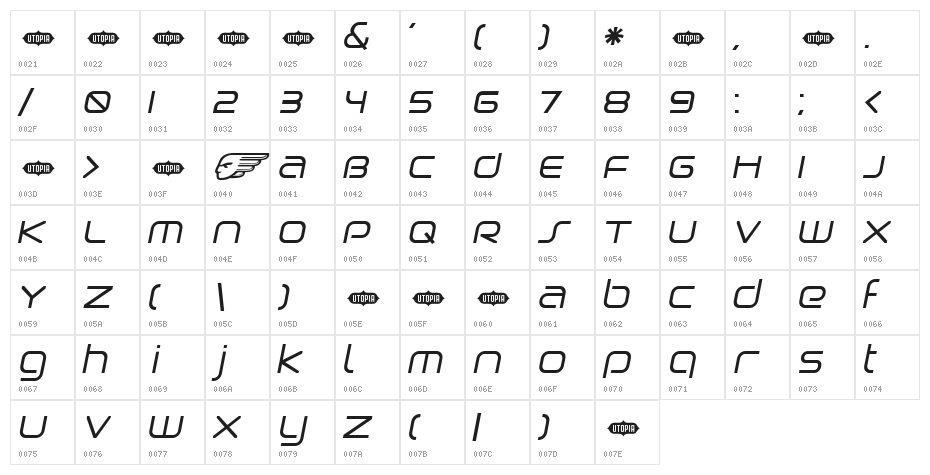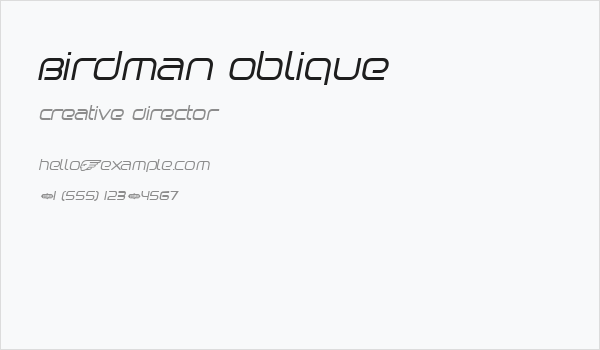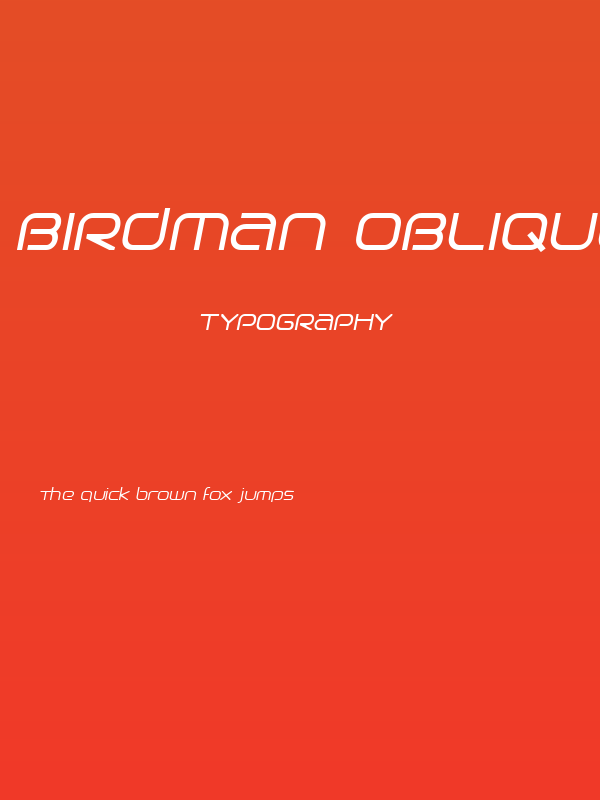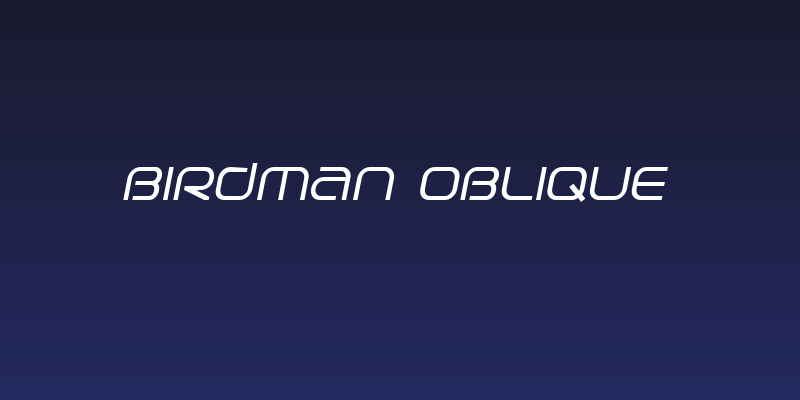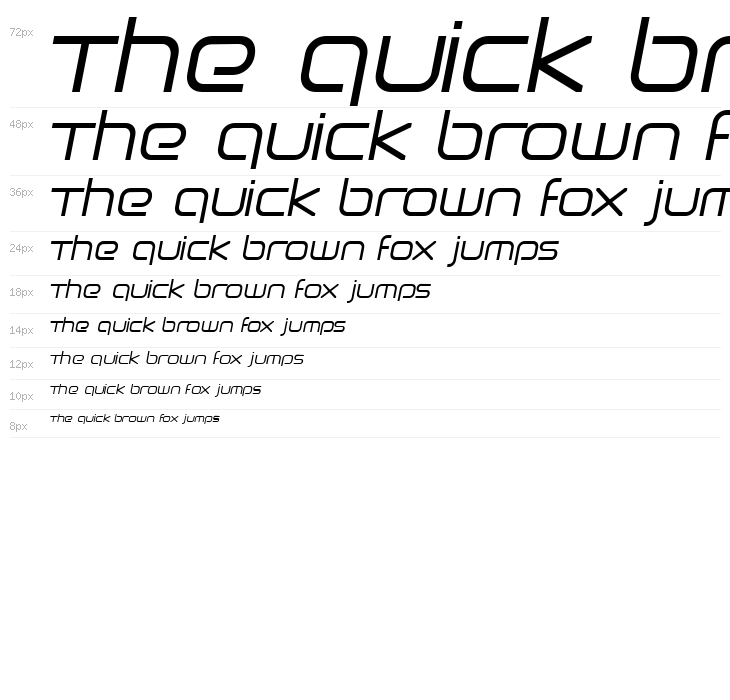
Birdman Oblique Font
Birdman Oblique Description
This font features a sleek, futuristic design with an oblique orientation, giving it a dynamic and modern appearance. The characters are slightly condensed, with smooth curves and sharp angles that create a sense of motion and speed. The uppercase and lowercase letters maintain a consistent style, with a uniform stroke width that adds to its clean and streamlined look. The numerals and special characters are designed to match the overall aesthetic, making it suitable for a variety of digital and print applications. Its unique style makes it stand out, while still being highly legible.
| Proposed Projects | Ideal for technology branding, sci-fi movie posters, video game interfaces, and modern advertising campaigns. |